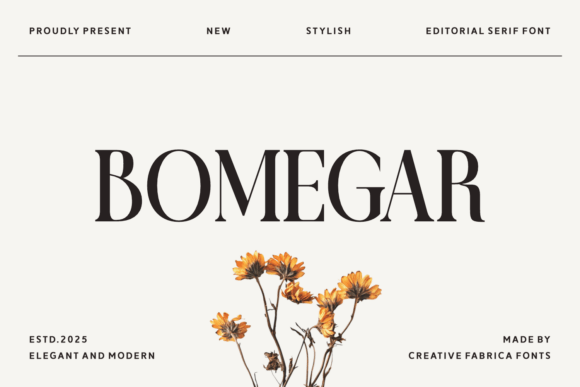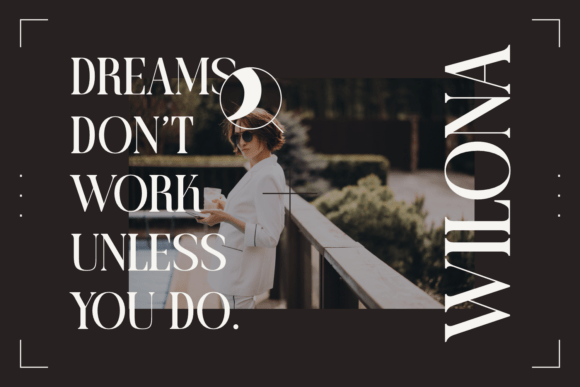
Bomegar Font
Bomegar is a stylish editorial serif font that combines elegance with modern sophistication. Featuring refined strokes, balanced proportions, and a timeless aesthetic, this typeface is perfect for magazines, branding, logos, and high-end product packaging. Its versatile design makes it ideal for both bold headlines and graceful body text, adding a luxurious editorial feel to any project.